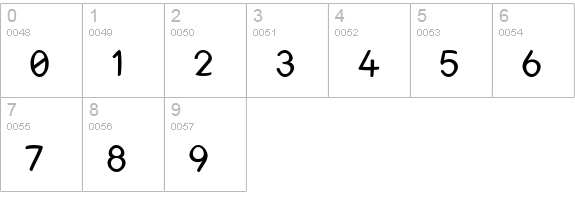
Street Humouresque font is a quirky and playful typeface that is perfect for adding a touch of humor and personality to your designs. Its irregular and hand-drawn style gives off a casual and friendly vibe, making it great for projects that need a relaxed and fun feel. The letters have a unique charm with uneven lines and exaggerated curves, adding a sense of whimsy to any text. One of the best things about Street Humouresque font is that it is completely free to download at FontsMarket.com. This means that you can easily add this delightful font to your collection without any cost, making it a fantastic choice for budget-conscious designers looking to spice up their projects with a touch of creativity. With its free availability, you can experiment with Street Humouresque font in various projects without any restrictions, allowing you to unleash your creativity without limitations.